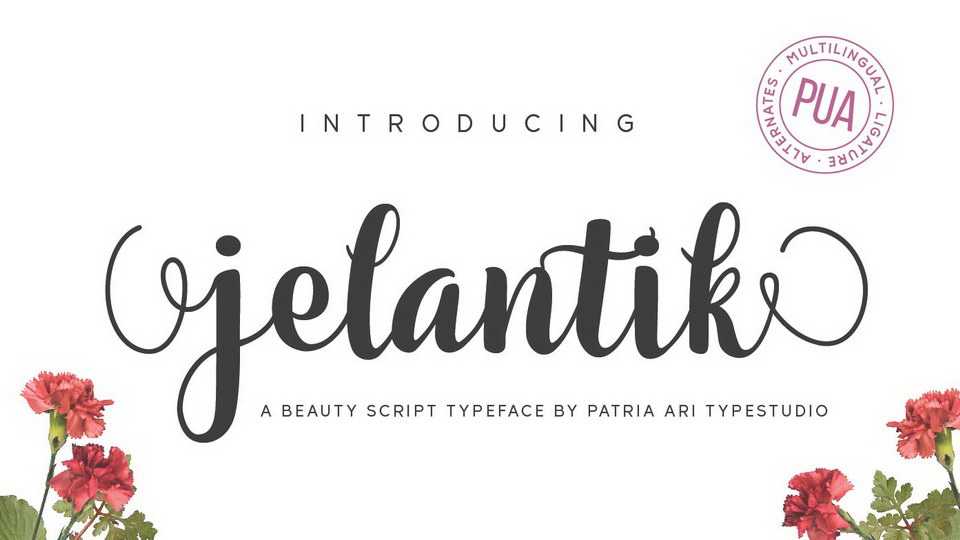
Download Jelantik font, a lovely script typeface with adorable cursive alternative glyphs. Jelantik is perfect for branding projects, logo, wedding invitation, social media post and any projects that need handwriting taste.